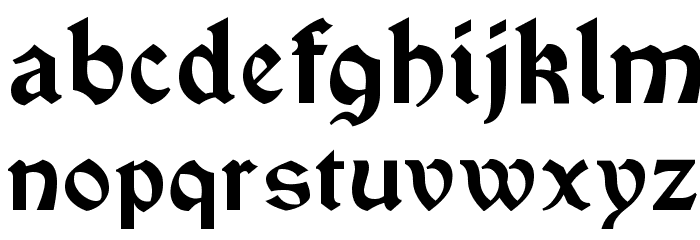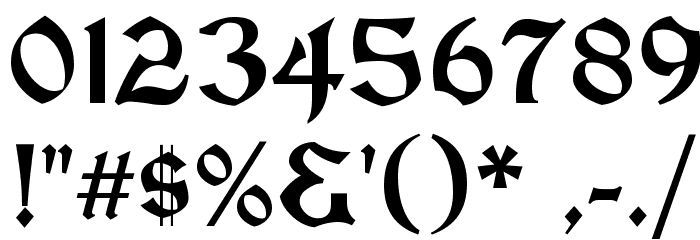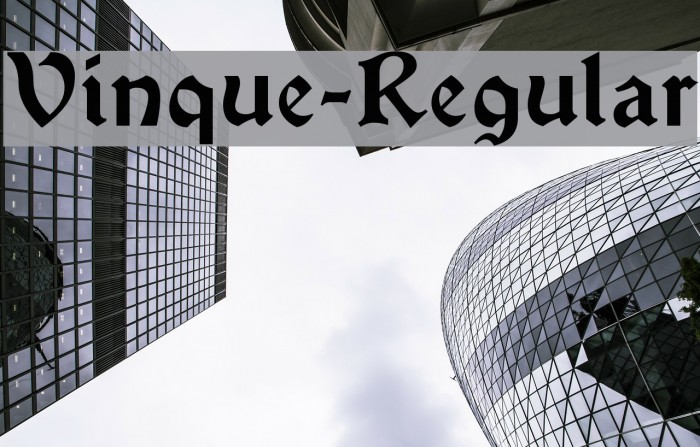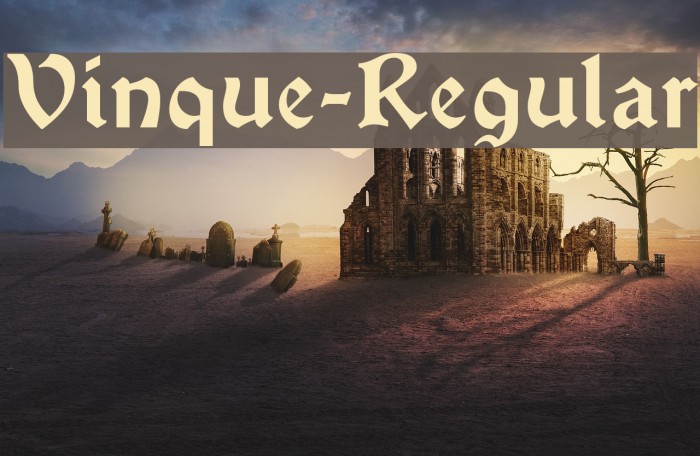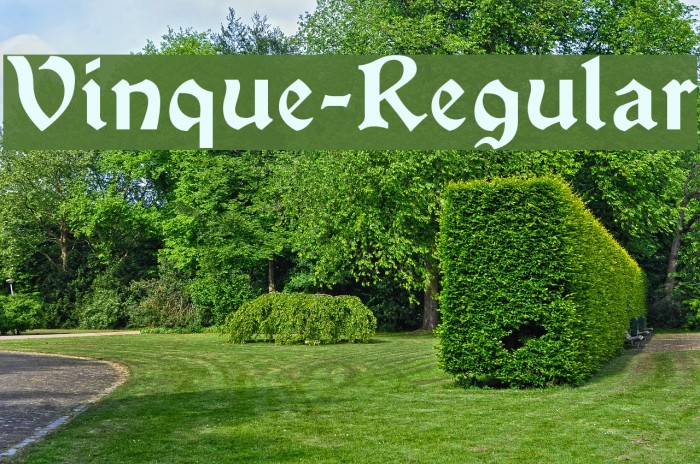
Vinque-Regular Font
This font exhibits a bold and striking design with a strong medieval influence. The characters are characterized by sharp, angular lines and dramatic serifs, giving it a distinct Gothic appearance. The uppercase letters are particularly ornate, with intricate details that enhance their visual impact. The lowercase letters maintain the same stylistic elements, ensuring consistency throughout the typeface. Numbers and special characters are designed with the same attention to detail, making them suitable for a variety of uses. The overall aesthetic is both historical and decorative, making it ideal for projects that require a touch of elegance and tradition.
A bold, Gothic-inspired font with sharp, angular lines and dramatic serifs.
- Proposed Projects: Ideal for historical or fantasy-themed designs, book covers, posters, and branding that requires a traditional or medieval touch.